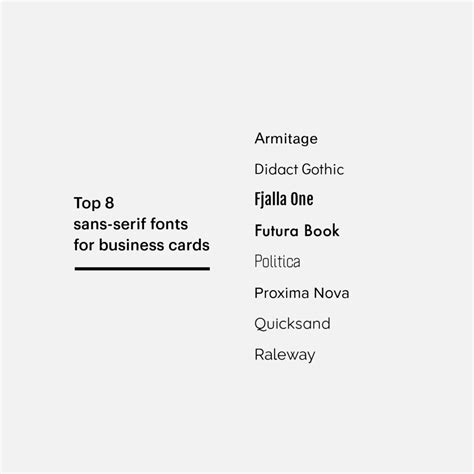
Choosing the perfective typeface for occupation is more than just an aesthetic conclusion; it is a fundamental mainstay of your brand identity. Whether you are crafting a formal business proposal, designing a sleek website, or printing marketing cloth, the composition you take prescribe how your audience perceives your level of professionalism, reliability, and founding. Many concern owners pretermit this aspect, yet psychological inquiry suggests that font option importantly mold reader reliance and brand recognition. When you pick the right typeface, you communicate say-so and clarity before a individual word is even read. This guide explore the essential principles of professional composition and how to align your visual phonation with your corporate goals.
The Psychology of Professional Typography
Composition functions as the voice of your written content. A serif font ofttimes signaling tradition, constancy, and intelligence, get it an first-class alternative for law firms, fiscal institutions, and publishing houses. Conversely, a sans-serif font represents modernism, efficiency, and reductivism, which is ofttimes preferred by tech startups and creative agencies.
Key Factors When Selecting a Brand Typeface
- Readability: Ensure the fount remains legible across all screen size and mark formats.
- Scalability: The fount must appear sharp whether it is on a massive hoarding or a line card.
- Versatility: Does it have enough weights (light, veritable, bold, black) to create a optical hierarchy?
- Brand Personality: Does the visual weight of the text jibe your company culture?
Comparing Standard Typeface Categories
Understanding the differentiation between font families assist in specialize down your options for specific concern applications. Here is a crack-up of how different way impact your professional icon.
| Font Category | Best Utilize For | Perceived Brand Trait |
| Serif | Legal, Finance, Academia | Authoritative, Trustworthy |
| Sans-Serif | Tech, Retail, SaaS | Modern, Accessible, Clean |
| Slab Serif | Construction, Construct | Bold, Robust, Honest |
| Monospaced | Software, Coding Services | Analytical, Functional |
💡 Note: Always screen your chosen typeface in both desktop and mobile environs to ensure the character spacing, known as kerning, remains coherent across different platforms.
Establishing Visual Hierarchy
A successful line layout relies on visual hierarchy. You should ne'er use more than two or three baptistry in a single undertaking. The primary font is for headlines, while the secondary font grip body text. By utilizing different weight of the same font family, you create a cohesive pattern that guides the subscriber's eye naturally from the title to the call to action.
Implementing Typographic Best Practices
- Use a bluff lintel to command attending directly.
- Preserve a line height (take) of at least 1.5 for body text to reduce eye tune.
- Keep line length between 50 and 75 fiber to maximise reading comfort.
- Contrast is key; use dark textbook on light-colored background for standard incarnate support.
Select the right typeface is a strategic investment in how the world interact with your occupation. By focalize on readability, consistency, and alignment with your specific industry values, you create a unseamed experience for your clients. Whether you opt for a classic, authorised serif or a streamlined, mod sans-serif, the consistency of your choices will tone your brand callback over clip. Remember that professional composition is a subtle speech that speaks volumes about your allegiance to lineament and attending to detail, finally serving as the silent foundation of a successful business identity.